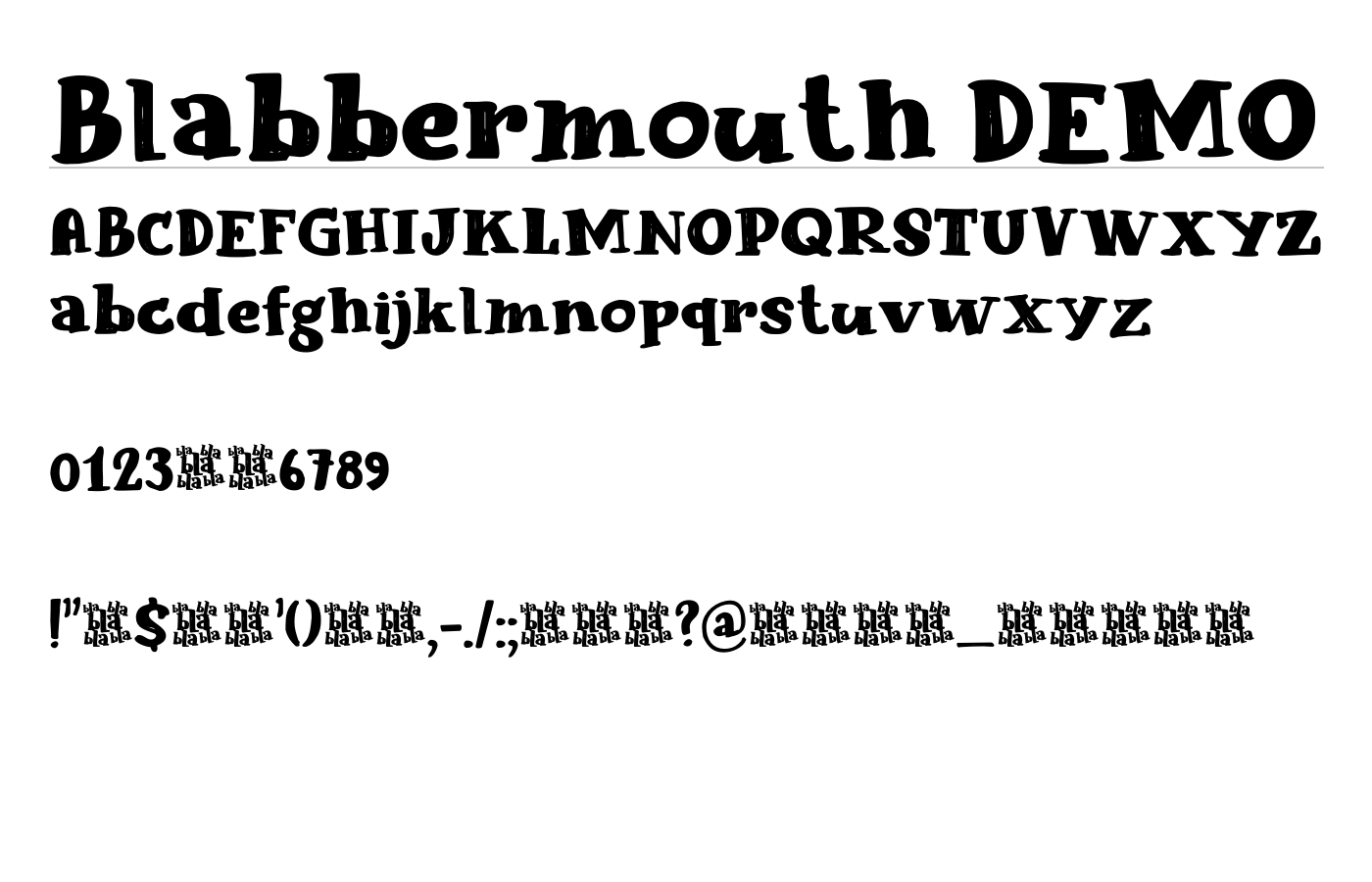
Blabbermouth DEMO is a playful, bold serif font with a slightly quirky and chunky style that gives it a lively and informal character. Its strong weight and uneven letterforms create a friendly, approachable vibe, making it ideal for fun, eye-catching headlines, posters, and branding that wants to convey energy and personality. This font works perfectly where a unique, casual tone is needed to grab attention and add a touch of whimsy.
Blabbermouth DEMO Font
About Blabbermouth DEMO Font